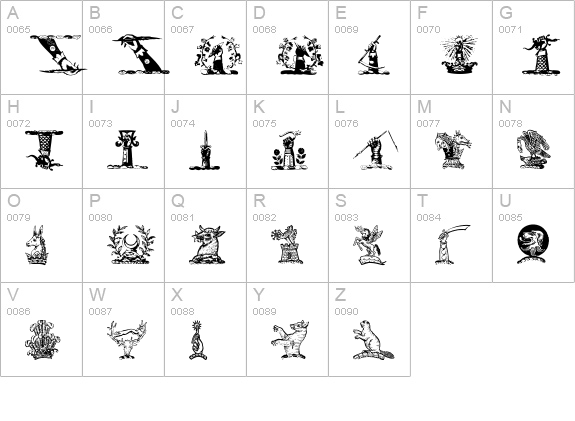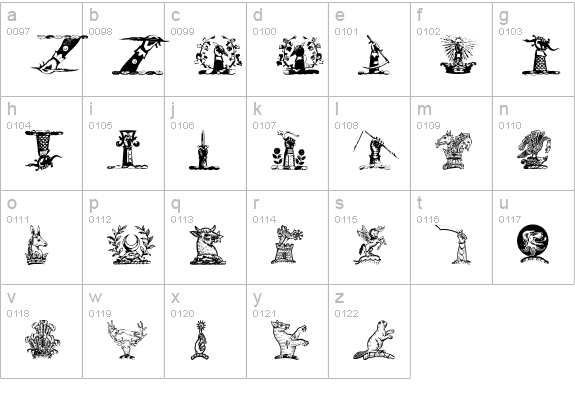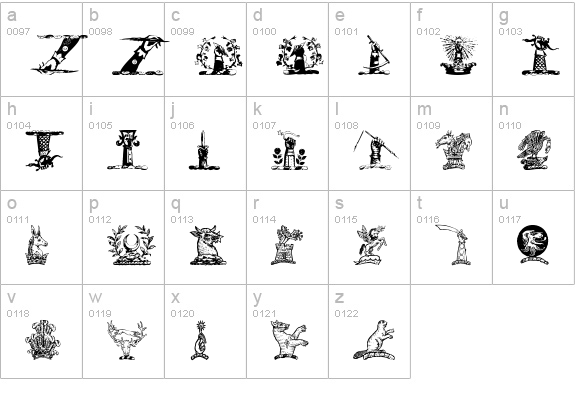
HelmbuschCrestSymbols Font Details
HelmbuschCrestSymbols font is a stunning collection of symbols that will add a touch of elegance and sophistication to any design project. This font features a wide range of intricately designed crests and emblems, perfect for adding a regal and distinguished look to logos, branding materials, invitations, and more. Each symbol in the HelmbuschCrestSymbols font has been meticulously crafted to ensure the highest level of detail and quality. From majestic lions to graceful eagles, this font offers a diverse selection of symbols that will suit a variety of design styles and themes. One of the standout features of the HelmbuschCrestSymbols font is that it is completely free to download. That's right, you can enhance your designs with these beautiful symbols without having to spend a dime. Simply head over to FontsMarket.com and download the font to start incorporating these stunning crests into your projects. Whether you're working on a personal project or a professional endeavor, the HelmbuschCrestSymbols font is a must-have addition to your design arsenal. Its versatility and timeless appeal make it a go-to choice for designers looking to elevate their creations. So why wait? Download the HelmbuschCrestSymbols font today and unlock a world of possibilities for your designs. Whether you're creating a logo for a luxury brand, designing wedding invitations, or adding a touch of sophistication to your website, this font will help you achieve the desired look and feel. Don't miss out on this incredible opportunity to enhance your designs with these exquisite symbols – download the HelmbuschCrestSymbols font now, exclusively at FontsMarket.com.